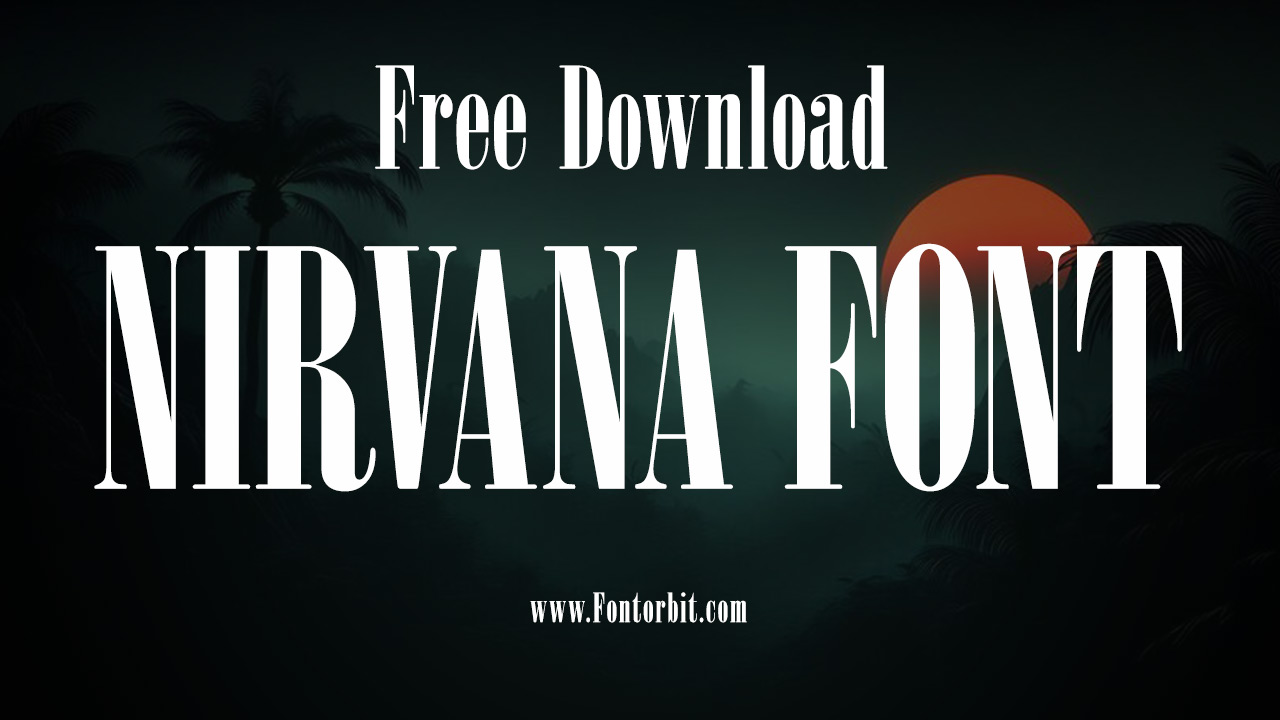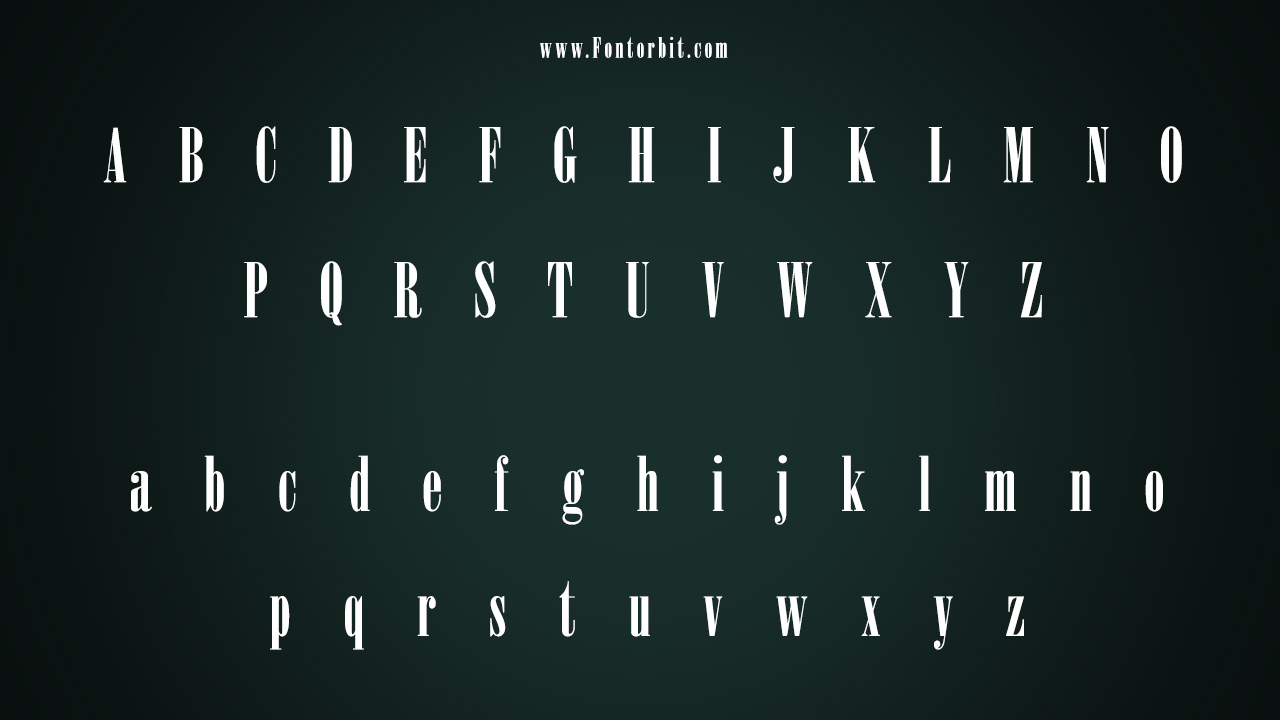
The iconic American rock band Nirvana, formed in 1987 by Kurt Cobain and Krist Novoselic, uses the Nirvana Font. Renowned for pioneering the grunge movement of the early 1990s, Nirvana’s logo features a distinctive smiley face and logotype that captures their raw and introspective style.
The font used in the Nirvana logo is Onyx, designed by Gerry Powell, and it plays a key role in embodying the band’s unique aesthetic.
The Nirvana Font Family
- Onyx Std original
- Nirvana Regular
This typeface features strong lines and a modern appearance, making it ideal for high-impact text such as band logos, promotional materials, and album covers. Its bold design ensures visibility and makes a statement in various applications.
Nirvana Font excels in delivering a strong visual impact. Its robust design suits music-related projects, promotional materials, and fan-based creative works where you desire a bold and dynamic look.
The Nirvana Font’s bold and clean style makes it an excellent choice for music-related and high-impact applications. Closely associated with the iconic American rock band Nirvana, this typeface is popular for its bold and impactful design.
It is perfect for creating powerful and memorable designs. Its distinctive design captures the essence of the iconic rock band, ensuring it stands out in various creative contexts.
1.What Is The Nirvana Font?
The Nirvana Font is Onyx, designed by Gerry Powell. It features a bold and impactful style that aligns with the grunge aesthetic of the Nirvana band logo.
2.How To Choose The Right Size For Nirvana Font?
Onyx is best used in larger sizes to emphasize its bold and clean design, making it ideal for prominent text in logos, posters, and album covers.
3.What Are The Key Features Of The Nirvana Font?
The Nirvana Font is characterized by its strong lines and modern appearance, providing a bold and impactful look that complements music-related branding.
4.How To Use The Nirvana Font In Design?
Use Onyx for high-impact designs such as band merchandise, promotional materials, and album art to capture a bold and dynamic visual style.
5.What Font Was Used On The Nirvana Smiley Face Logo?
The Nirvana smiley face logo uses Onyx, a hand-drawn typeface. Still, the font used for the band’s name is often identified as Poster Bodoni Compressed, a serif typeface by Chauncey H. Griffith.